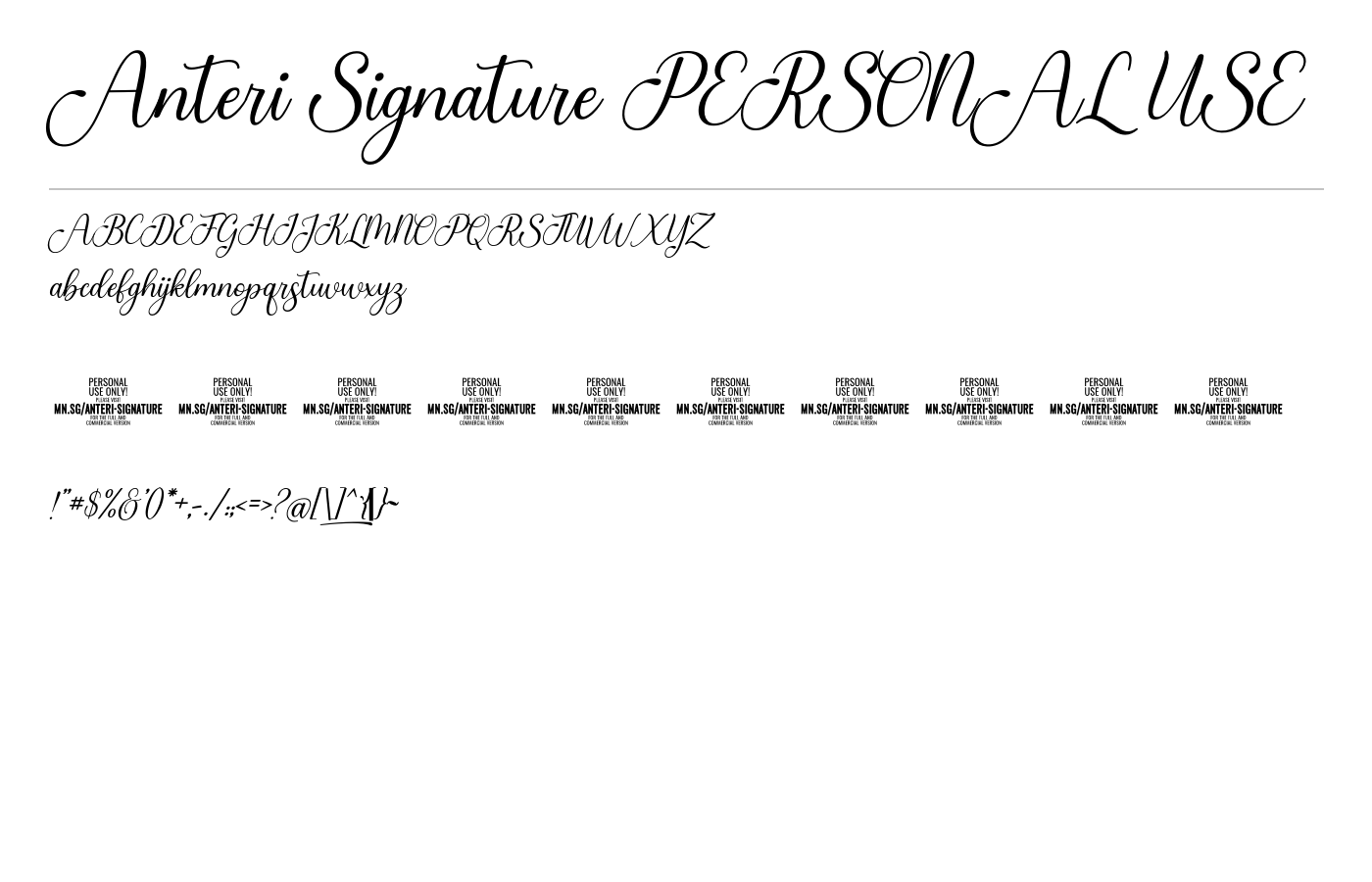
Anteri Signature is a delicate, elegant script font that mimics natural handwriting with smooth, flowing strokes and a slightly tall x-height. Its fine weight and graceful curves give it a refined and personal feel, making it ideal for invitations, branding, and any design that seeks a touch of sophistication and warmth. This font works beautifully in projects where a stylish, handwritten look can convey charm and professionalism.
Anteri Signature PERSONAL USE Font
About Anteri Signature PERSONAL USE Font